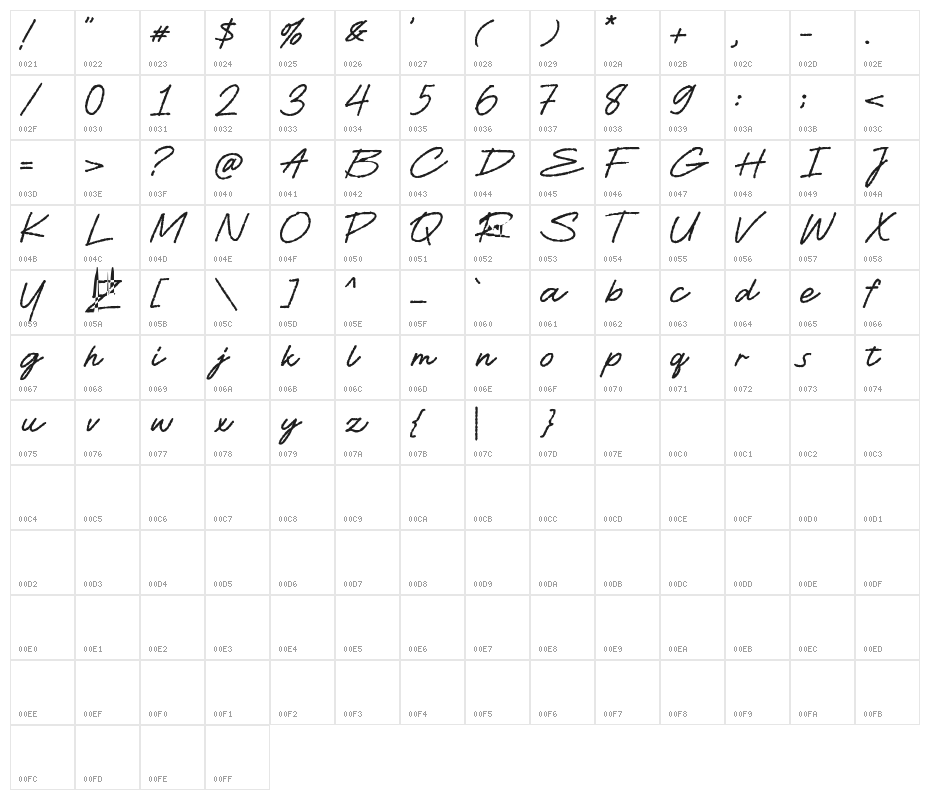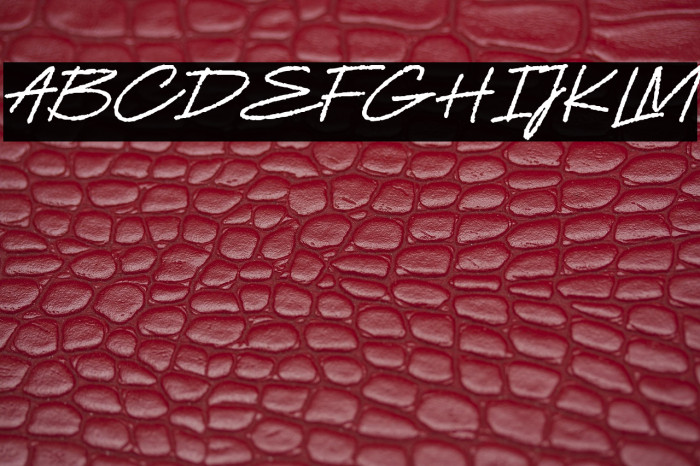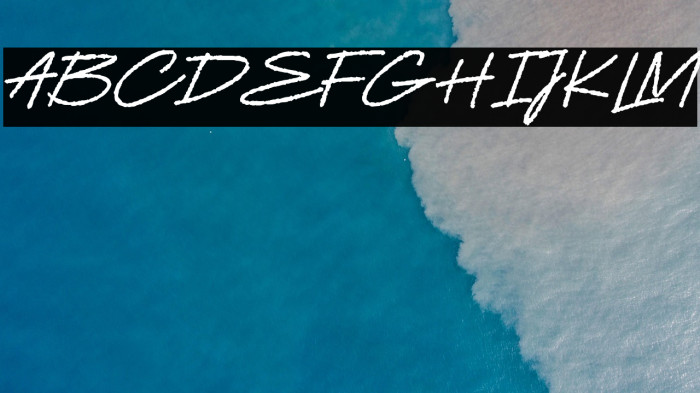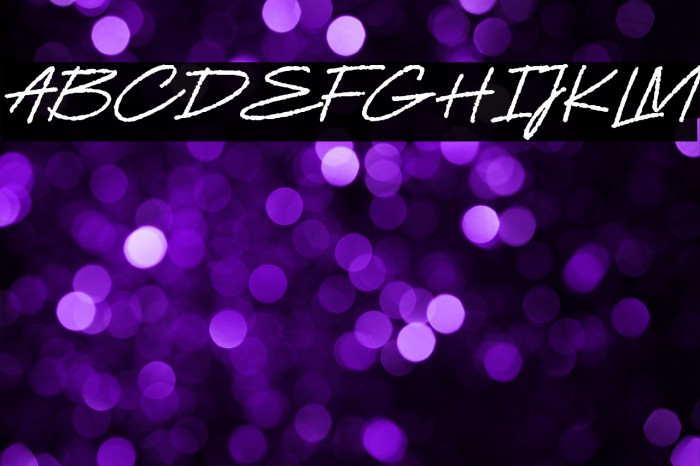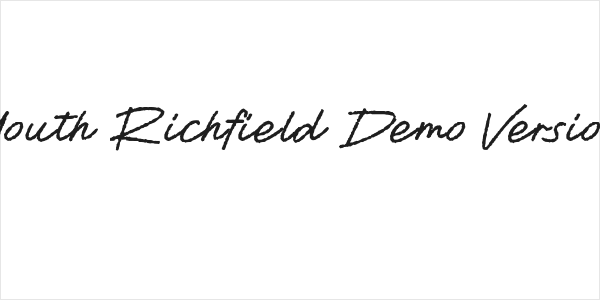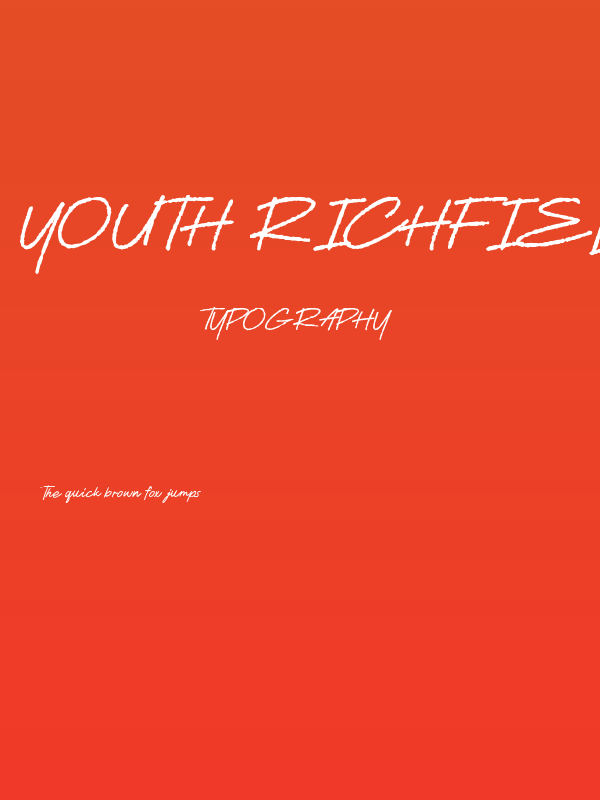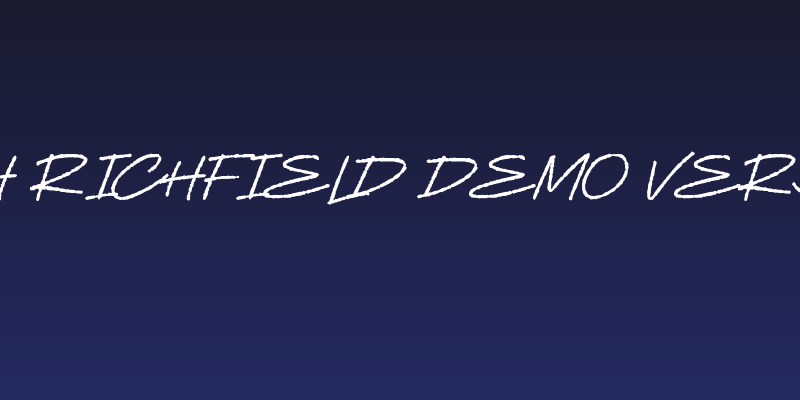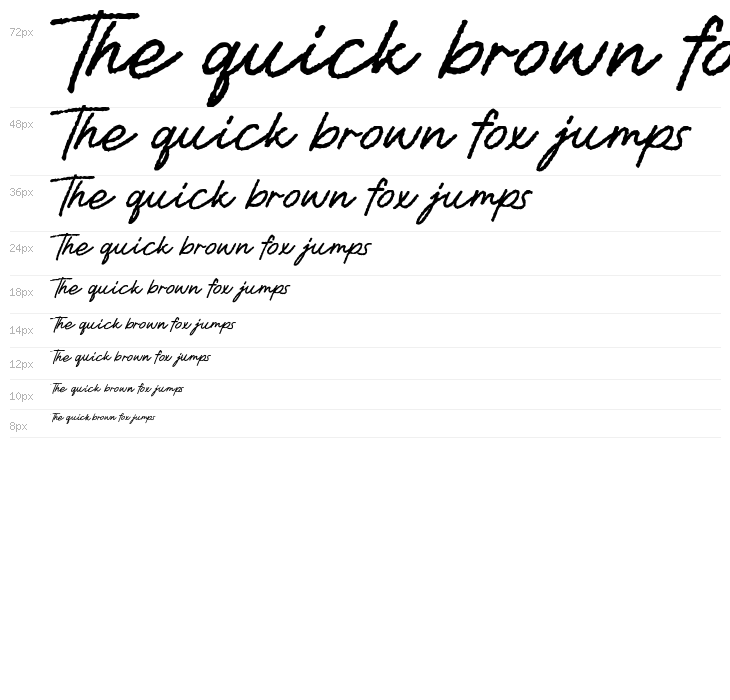
Youth Richfield Demo Version Font
Youth Richfield Demo Version Description
This font exhibits a dynamic and energetic handwritten style, characterized by its fluid and cursive letterforms. The strokes are smooth and connected, giving it a natural and personal touch. The uppercase letters maintain a consistent slant, while the lowercase letters flow seamlessly into one another, enhancing the script-like appearance. The numerals and special characters are crafted with the same attention to detail, ensuring uniformity across the typeface. The overall impression is one of casual elegance, making it suitable for projects that require a personal or informal tone.
| Overall Style | Casual, Elegant |
| Use Case | Logos, Invitations, Social media graphics |
| Proposed Projects | Ideal for personal invitations, greeting cards, branding projects, and social media graphics where a personal touch is desired. |